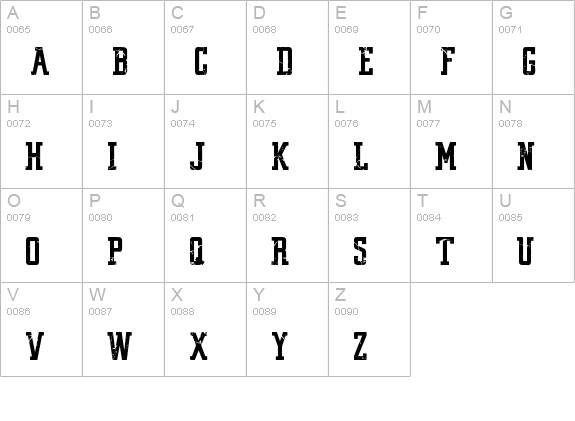
VINTAGE COLLEGE DEPT_DEMO_worn Font Details
Introducing the captivating Vintage College Dept_Demo_worn font, a true homage to the timeless charm of vintage college designs. This font effortlessly combines a worn, distressed aesthetic with a classic collegiate style, creating a unique and eye-catching typographic experience. With its rough edges, weathered appearance, and nostalgic feel, Vintage College Dept_Demo_worn font transports you back to the golden era of college campuses, where school spirit ran high and memories were made. Its bold and confident letterforms evoke a sense of nostalgia, making it perfect for a variety of design projects. Whether you're working on a retro-inspired poster, a vintage-themed logo, or even a nostalgic branding project, this font will effortlessly elevate your design to new heights. Its versatility allows it to be used in both headline and body text, ensuring a cohesive and impactful visual experience. And the best part? Vintage College Dept_Demo_worn font is freely available to download at FontsMarket.com. With just a few clicks, you can bring the essence of vintage college aesthetics to your design projects, without any cost. This font is a true gem for designers, offering both quality and accessibility in one package. So don't miss out on the opportunity to add this remarkable font to your collection. Download Vintage College Dept_Demo_worn font today from FontsMarket.com and let your creativity soar as you effortlessly capture the essence of vintage college charm in your designs.